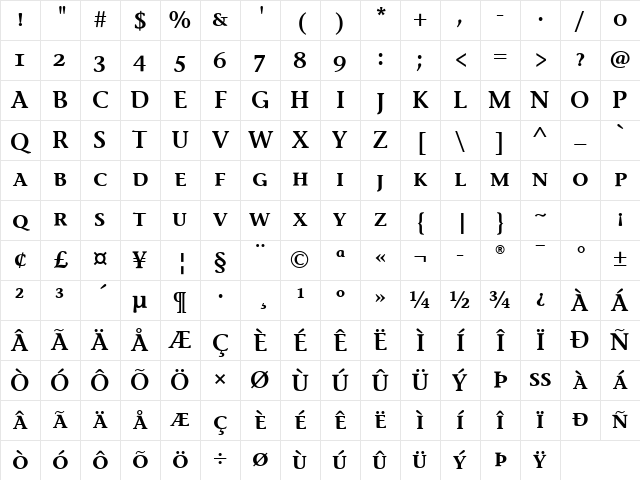
StoneInfSemSCITC Regular
Foundry: International Typeface Corporation
Design Context for StoneInfSemSCITC
StoneInfSemSCITC is a composed and adaptable typeface that performs quietly and consistently across a wide range of design contexts.